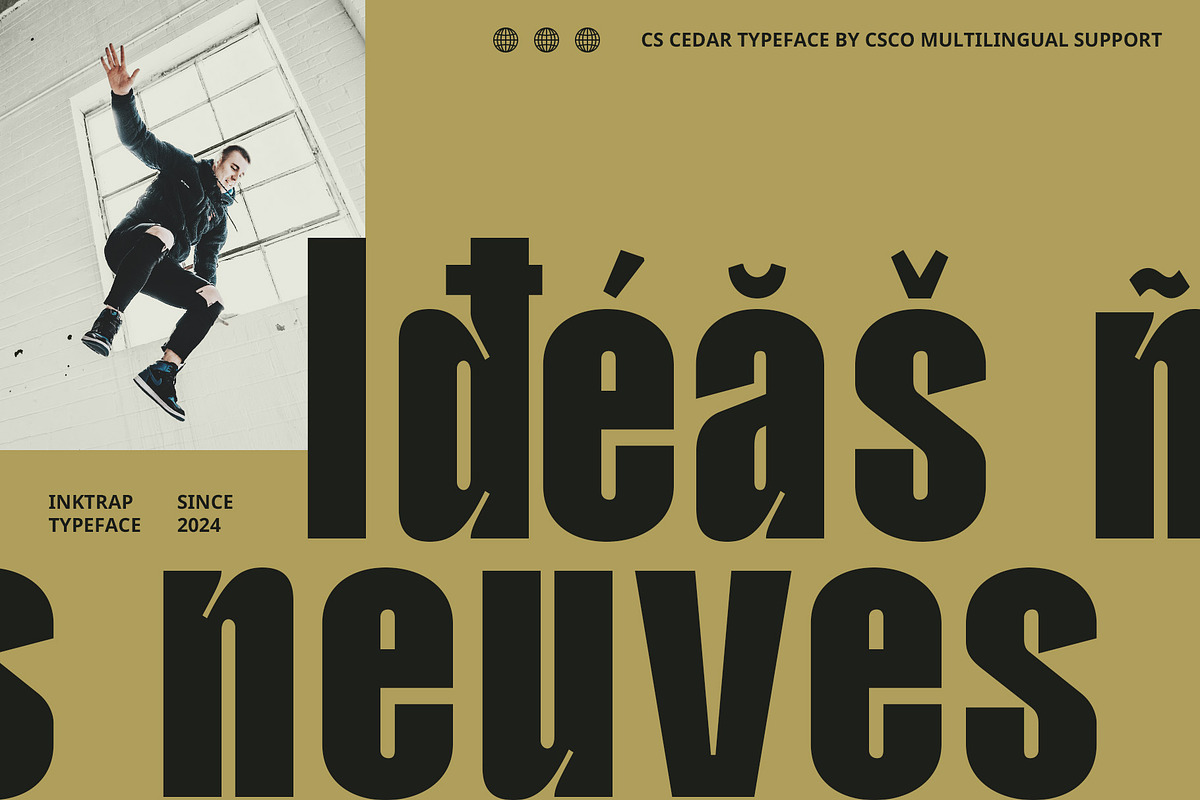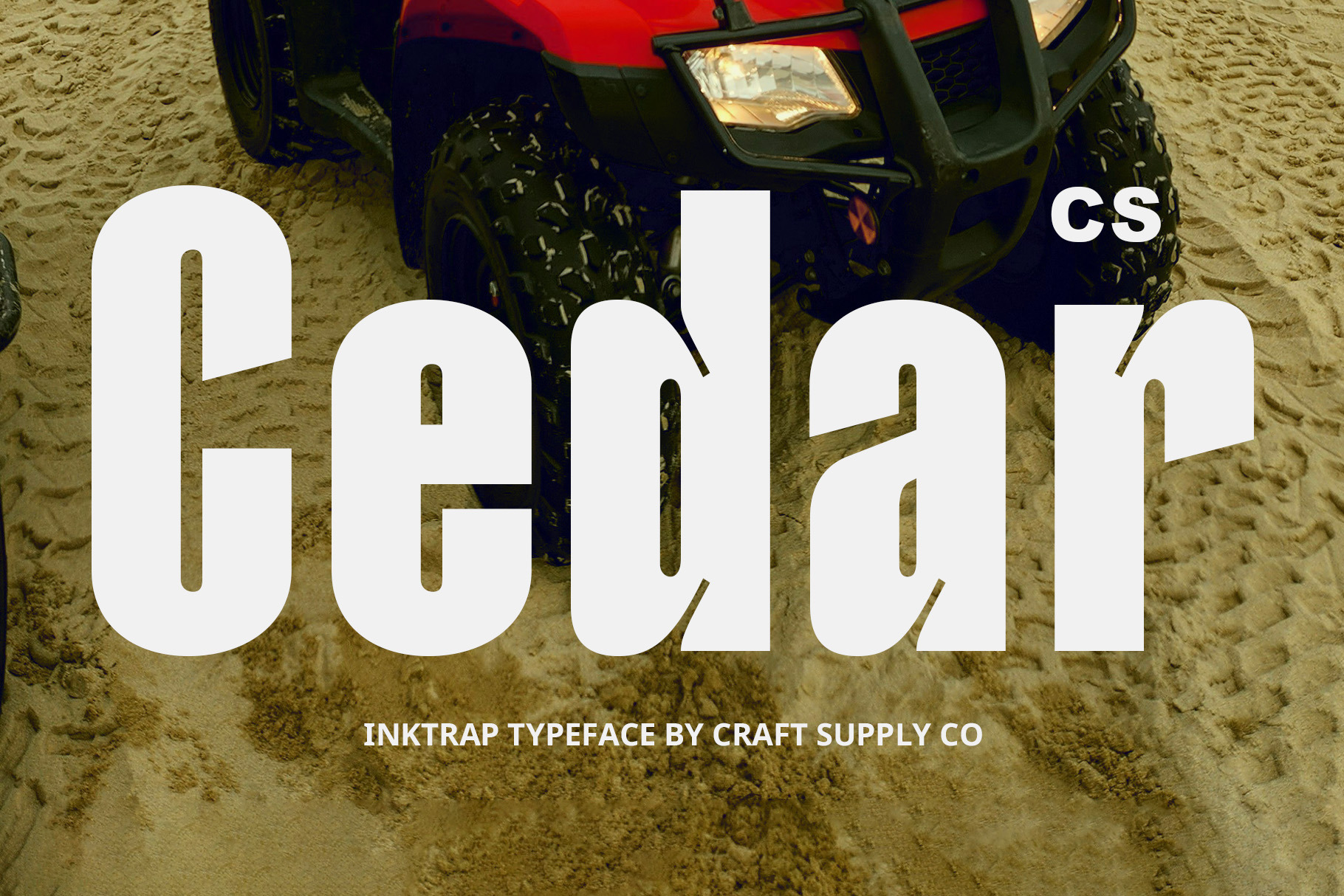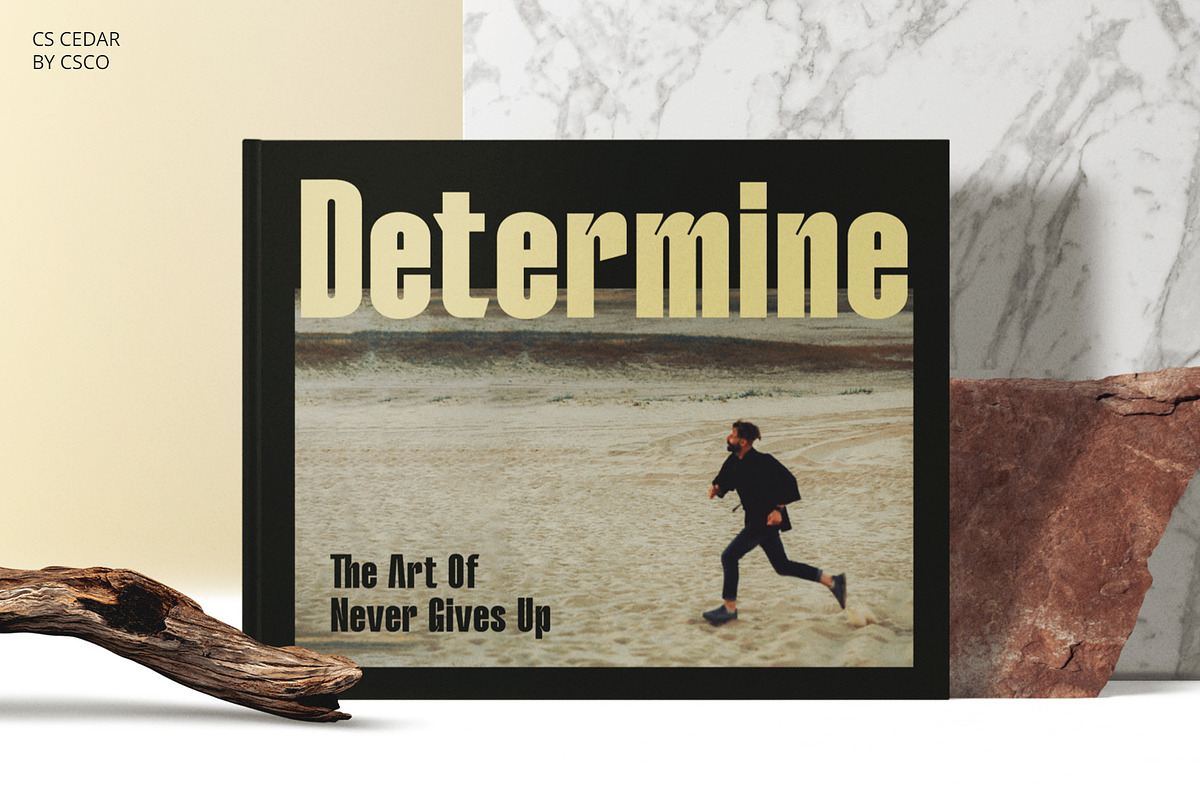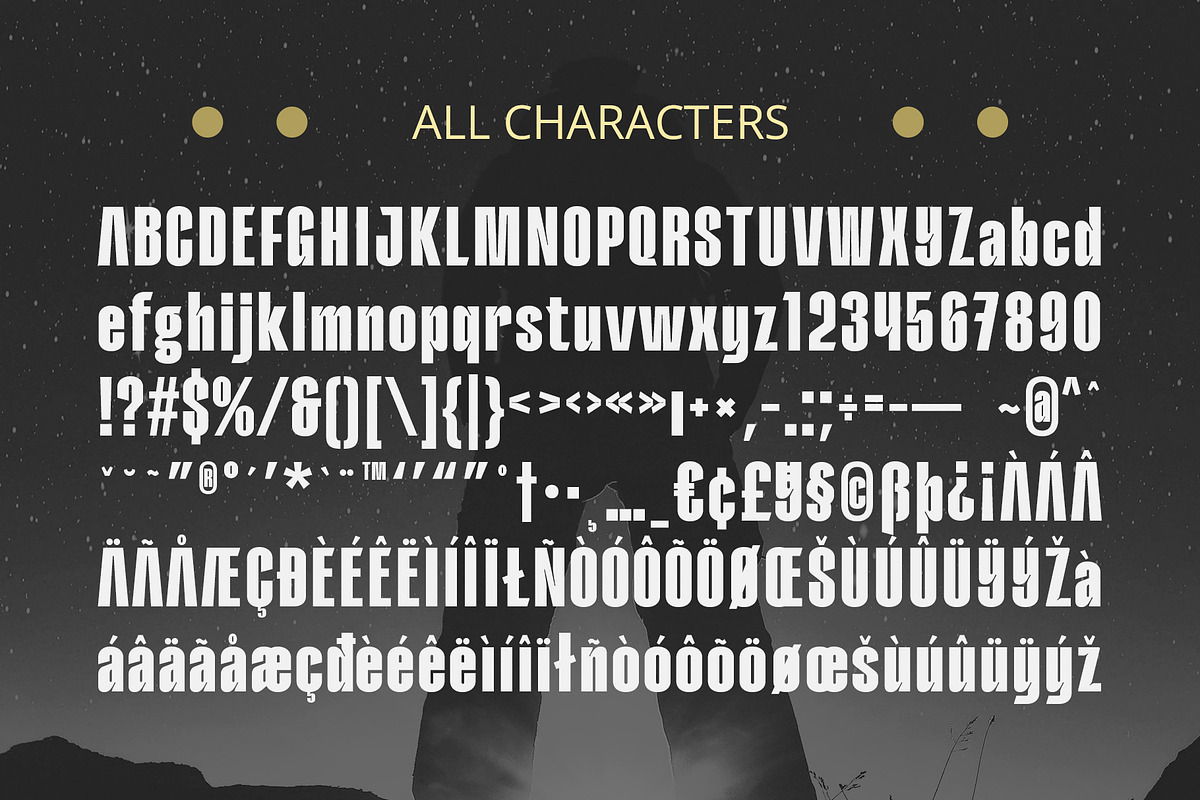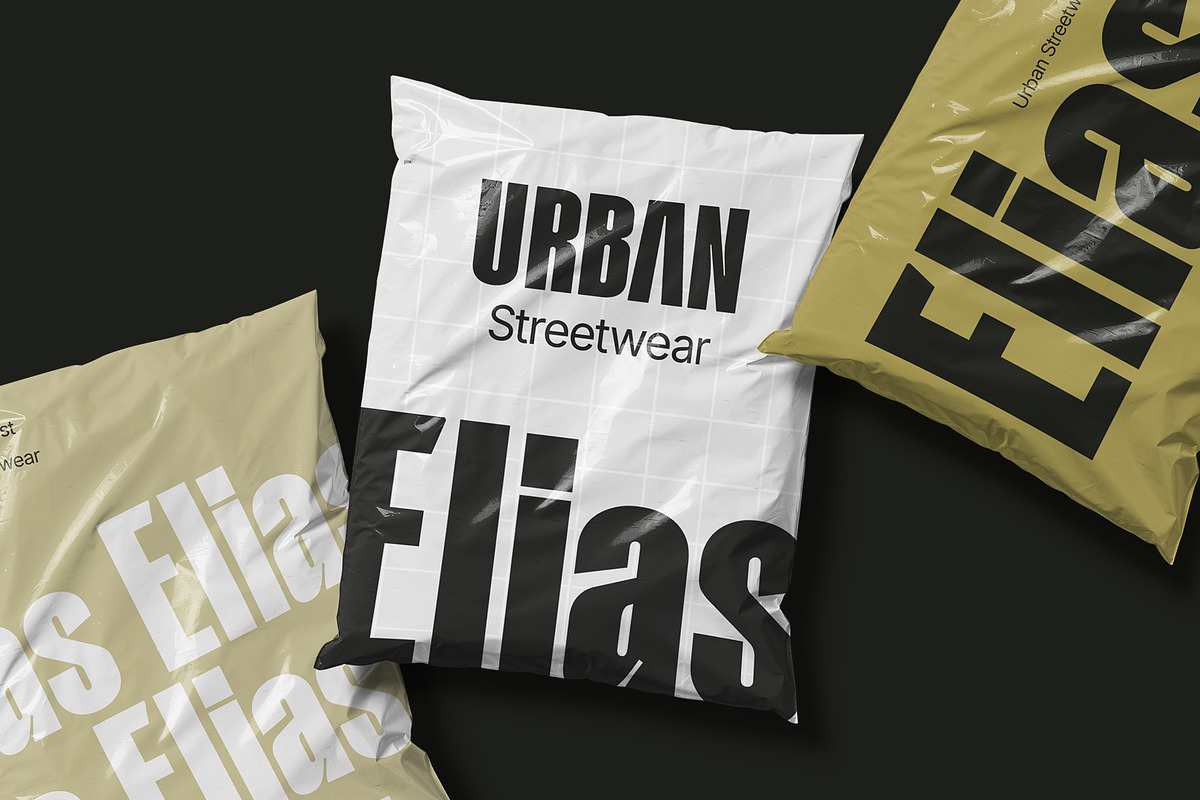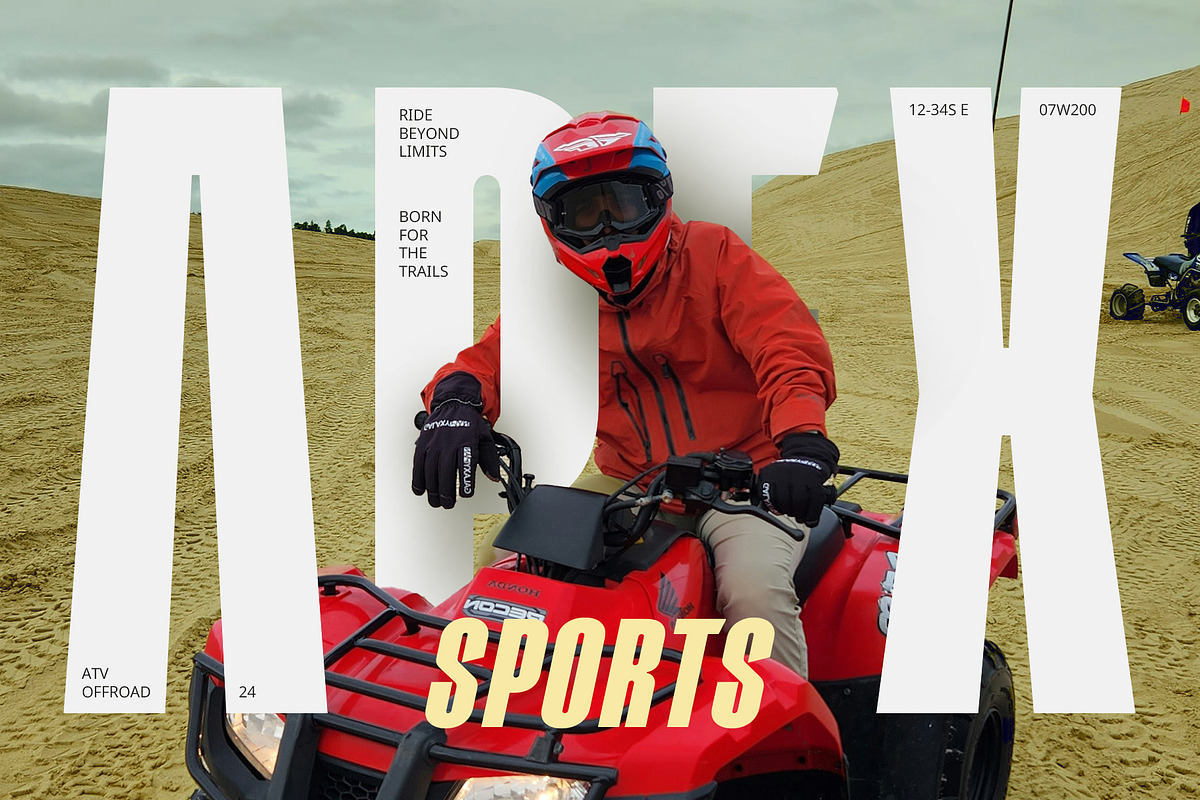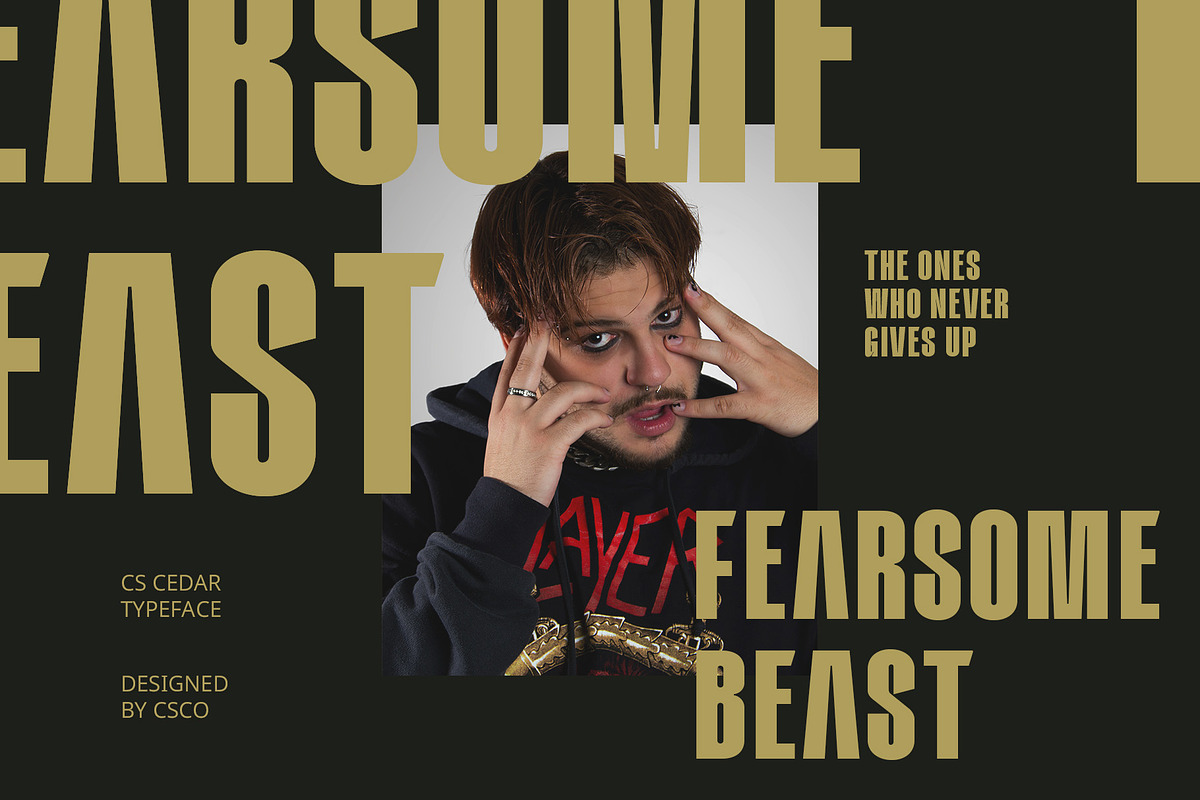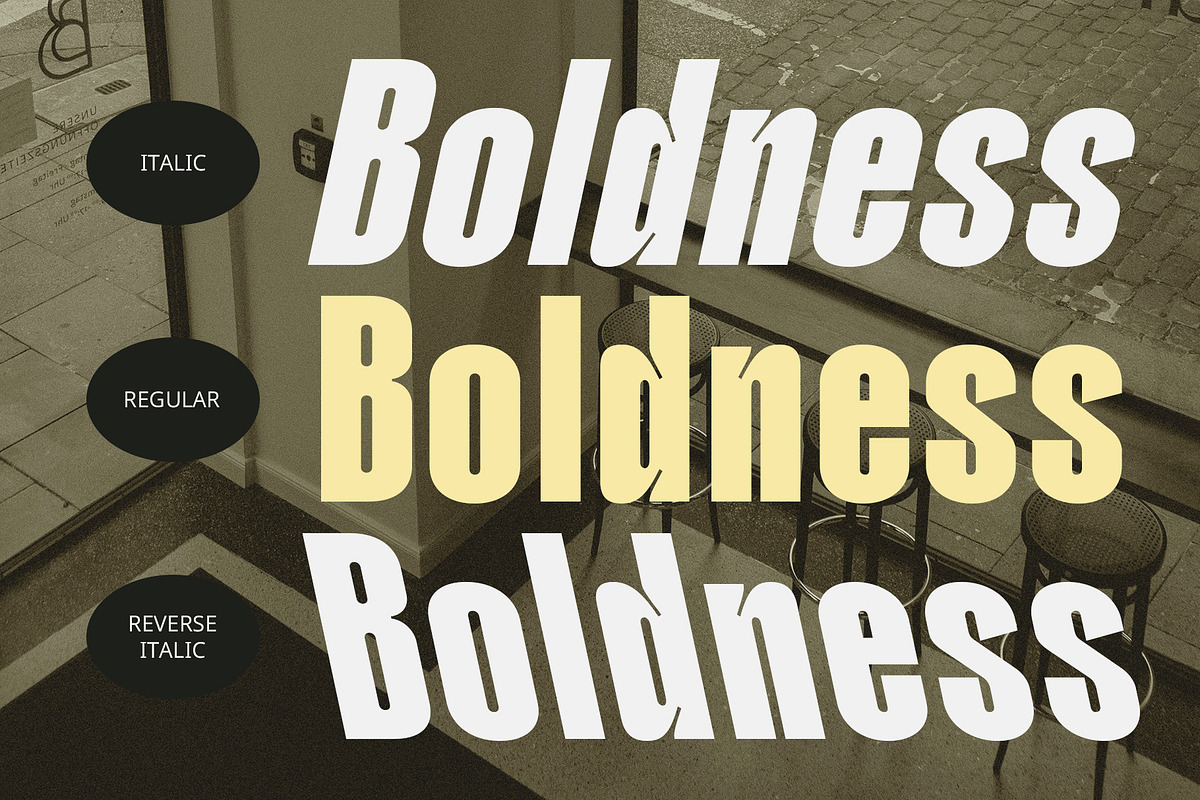
CS Cedar – Inktrap Font
CS Cedar – Modern Inktrap Sans-Serif Font
Bold, Sharp, and Readable Design CS Cedar is a modern sans-serif font that combines bold, powerful letterforms with innovative inktrap features. Its strong, solid design exudes confidence, while the inktrap—strategically placed cuts or extra space at the edges of the letters—enhances legibility and ensures readability, even at smaller sizes. This carefully crafted font balances strength with clarity, making it a perfect choice for projects that require both a commanding presence and high readability.
Powerful and Contemporary Appeal The bold forms of CS Cedar create a solid, impactful impression, ideal for designs that need to stand out with modern sophistication. The sharp, clean lines enhance the font’s contemporary feel, while the inktrap design makes it visually appealing and easier to read across different platforms, ensuring your message is both bold and clear.
Versatile for Branding and Graphic Displays Perfect for logos, headings, and graphic displays, CS Cedar is designed to maintain its clarity and impact even at larger sizes, making it an excellent choice for branding, signage, and posters. Its bold presence and readable design work well across digital and print mediums, offering a sleek, professional look that works seamlessly in a variety of creative projects.
- CS Cedar Regular
- CS Cedar Italic
- CS Cedar Reverse Italic